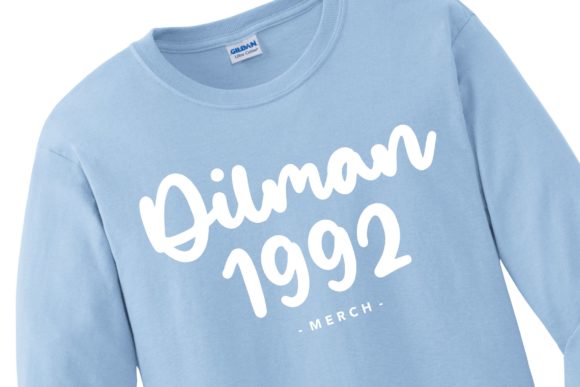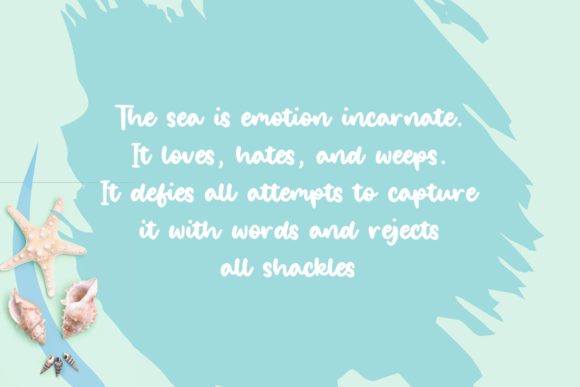
Salty Ocean Font
db-ku.com - Script & Handwritten -- Salty Ocean is a flowing handwritten font, described by an elegant touch, perfect for your favorite projects. Fall in love with its incredibly distinct and timeless style and use it to create spectacular designs!